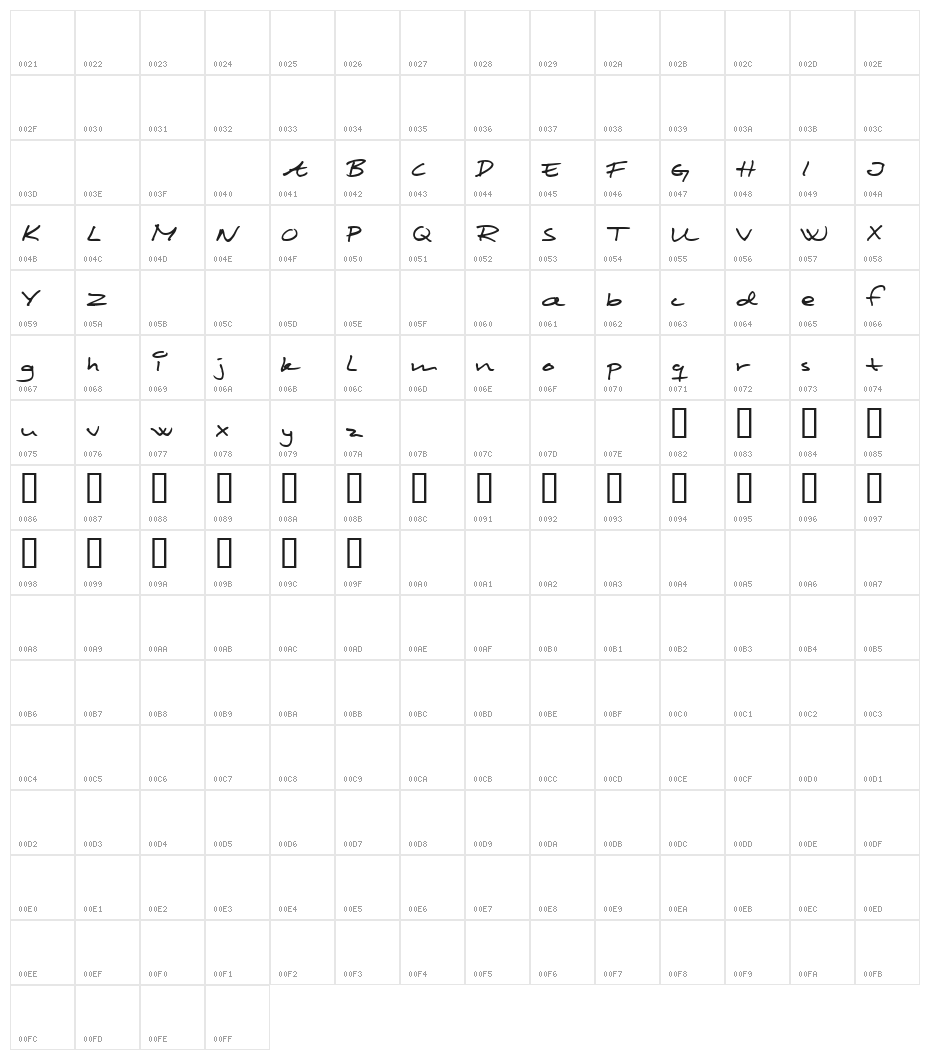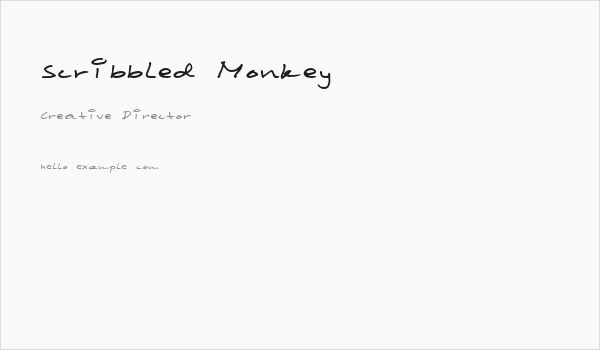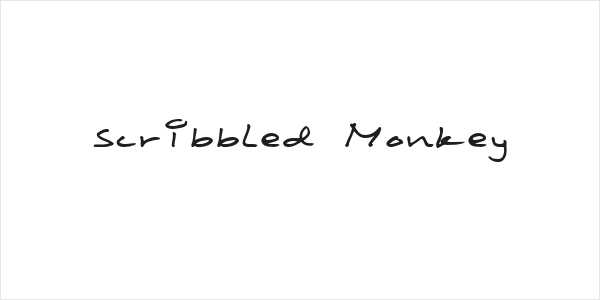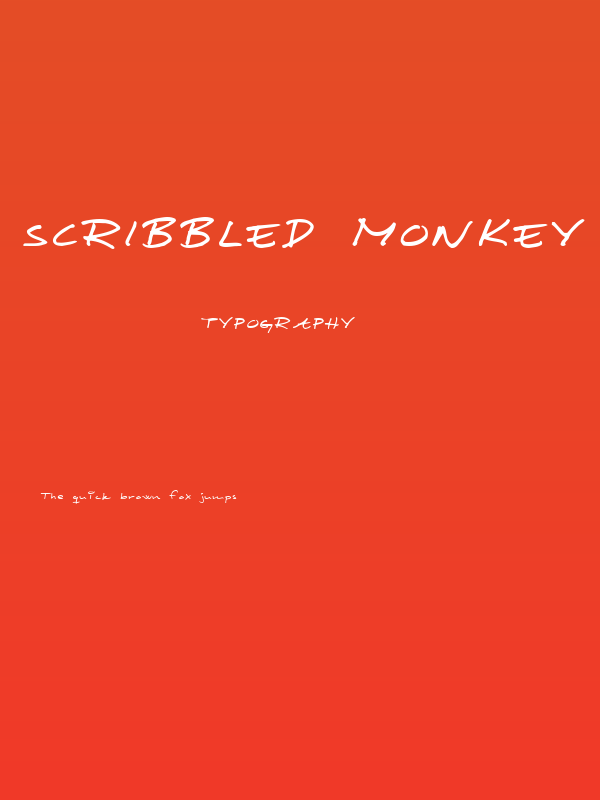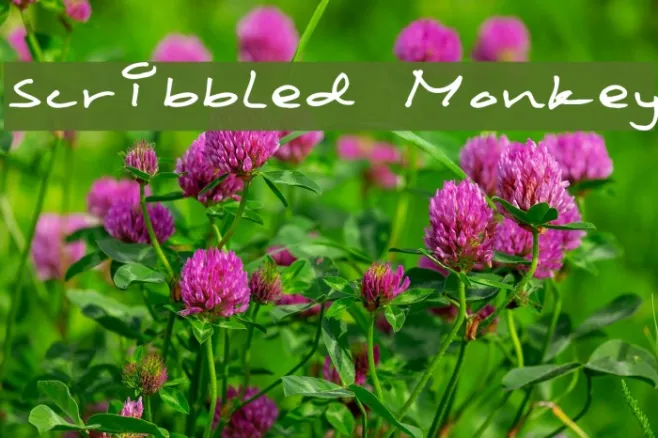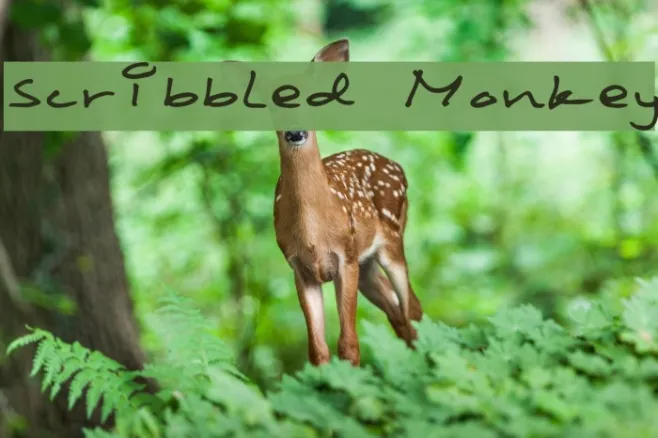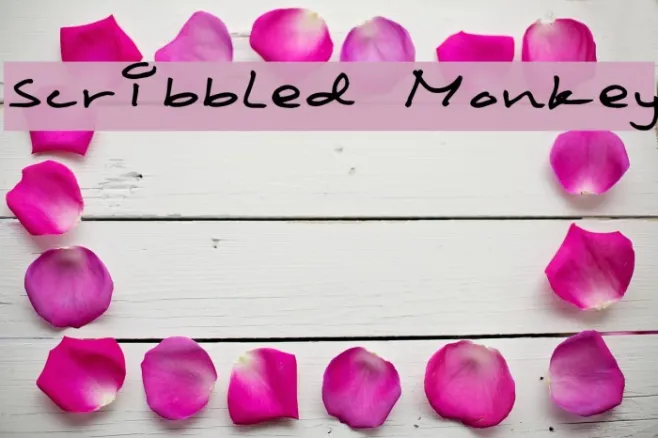
Scribbled Monkey Font
Scribbled Monkey Description
This font exhibits a playful and casual handwritten style, characterized by its fluid and dynamic strokes. The letters are slightly slanted, giving a sense of movement and spontaneity. The uppercase and lowercase letters maintain a consistent style, with rounded edges and varying stroke thickness that adds to its informal charm. The font's organic flow makes it feel personal and approachable, ideal for projects that require a touch of personality and warmth. The spacing between characters is balanced, ensuring readability while preserving its unique handwritten aesthetic.
| Proposed Projects | Ideal for greeting cards, personal notes, informal invitations, and creative branding projects. |